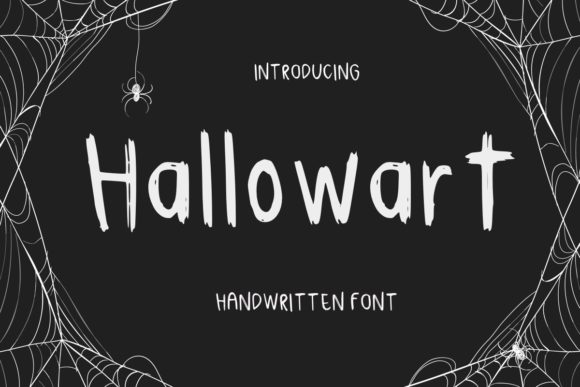
Hallowart Font: The Perfect Blend of Spooky and Friendly for Your Creative Projects
Are you on the hunt for a font that captures the essence of Halloween while still being approachable and friendly? Look no further than the Hallowart Font! This casual handwritten font is a game-changer for designers and crafters alike, offering a unique blend of scary style and warm, inviting feel. In this article, we’ll dive into the world of Hallowart Font, exploring its features, uses, and benefits for your creative projects.
What is Hallowart Font?
Hallowart Font is a carefully crafted, handwritten font designed to bring a touch of Halloween magic to your designs. Its incredibly scary style is balanced by a friendly feel, making it perfect for a wide range of applications. Whether you’re creating spooky wedding invitations, cute greeting cards, or eye-catching social media posts, Hallowart Font is the ideal choice.
Key Features of Hallowart Font
- Unique and Quirky Style: Hallowart Font boasts an unmistakable, hand-crafted look that’s sure to grab attention.
- Versatile: Use it for wedding invitations, stationery art, social media posts, logos, branding, and more!
- Halloween-themed Bonus Files: Get ready to take your Halloween projects to the next level with amazing bonus files.
- Easy to Read and Write: Despite its quirky style, Hallowart Font remains clear and legible, making it perfect for body text and headlines.
Uses for Hallowart Font
The possibilities are endless with Hallowart Font! Here are some ideas to get you started:
- Wedding Invitations: Create stunning, one-of-a-kind wedding invites that set the tone for a spooky-chic celebration.
- Stationery Art: Add a touch of personality to your stationery with Hallowart Font, perfect for letters, cards, and more.
- Social Media Posts: Stand out on social media with eye-catching graphics and posts that showcase your brand’s personality.
- Logos and Branding: Use Hallowart Font to create a unique, memorable logo that reflects your brand’s values and style.
- Greeting Cards: Create adorable, Halloween-themed greeting cards for friends and family.
So, what sets Hallowart Font apart from other fonts on the market? Here are some benefits that make it a must-have for designers and crafters:
- Time-Saving: With Hallowart Font, you can create stunning designs in no time, thanks to its ease of use and versatility.
- Unique Designs: Say goodbye to generic, overused fonts and hello to unique, show-stopping designs that reflect your creativity.
Tips and Tricks for Using Hallowart Font
To get the most out of Hallowart Font, here are some expert tips and tricks:
- Experiment with Colors: Try pairing Hallowart Font with bold, bright colors to create a striking contrast.
- Mix and Match: Combine Hallowart Font with other fonts and design elements to create a unique look.
- Pay Attention to Kerning: Adjust the kerning to ensure your text looks balanced and visually appealing.
In conclusion, Hallowart Font is a game-changing, casual handwritten font that’s perfect for designers and crafters looking to add a touch of Halloween magic to their projects. With its unique blend of scary style and friendly feel, Hallowart Font is sure to become a staple in your design toolkit. So why wait? Get creative with Hallowart Font today and take your designs to the next level!